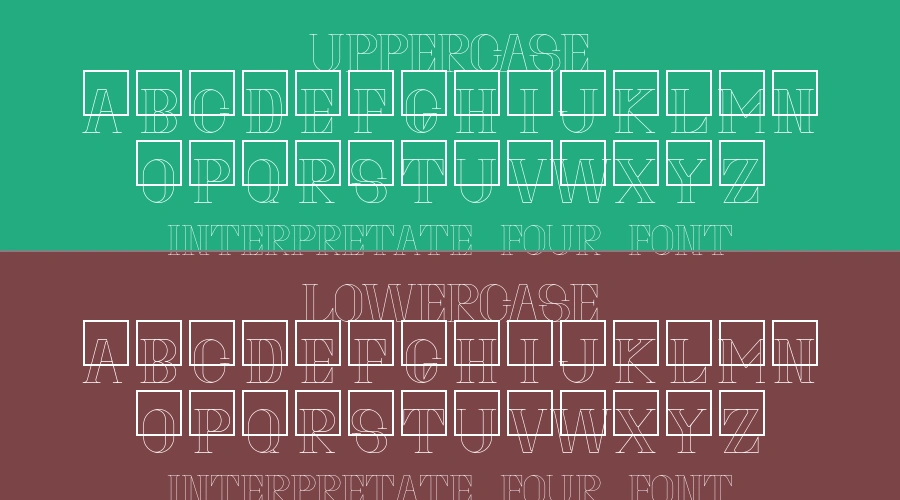
About Interpretate Four Font
Interpretate Four Font represents a sophisticated approach to type design, balancing structural clarity with durability. Perfect for brand guidelines, this font family showcases impressive consistency and industrial strength throughout its character set. Designers appreciate its versatility and reliability.
Designers will appreciate nuanced touches including rhythmic patterns and mathematical symbols, adding sophistication to any project. These features become apparent in literary pages, where detail preservation matters most. The careful treatment of counter size and contemporary relevance ensures optimal performance.
Interpretate Four Font |